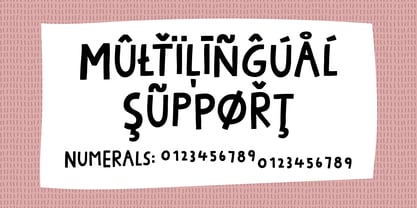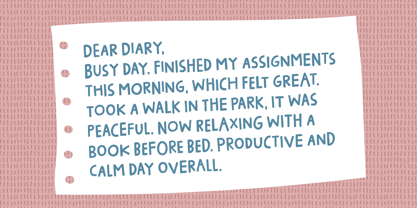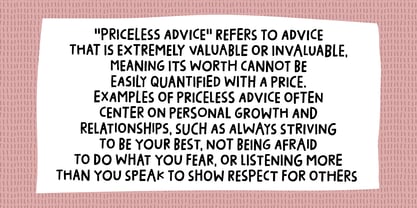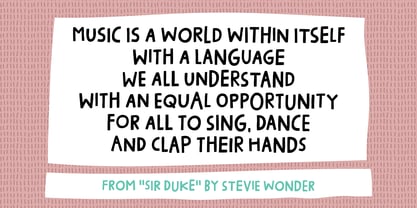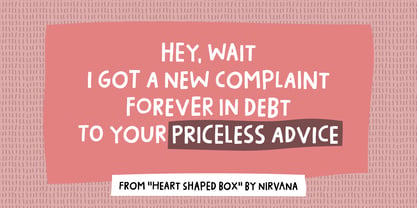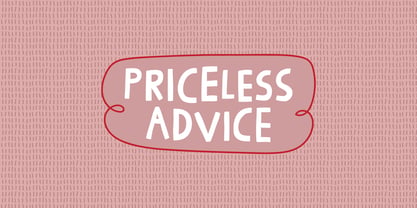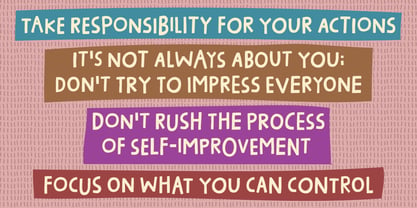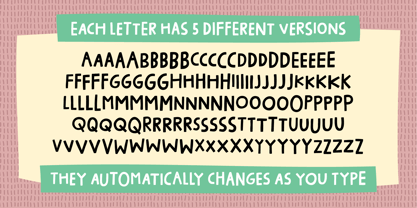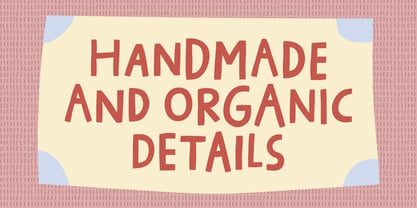
Priceless Advice
The Priceless Advice Font Family was designed by Jakob Fischer and published by Bogstav. Priceless Advice contains 2 styles and family package options. More about this family
A priceless advice is guidance deemed invaluable, often because it's deeply impactful or based on profound wisdom - and it is also two words from the song "Heart shaped box" by Nirvana. The style is handmade, organic and somewhat off grid - meaning a legible, but wacky set of letters. I have added 5 different versions of each letter, and they automatically changes as you type!
Designers: Jakob Fischer